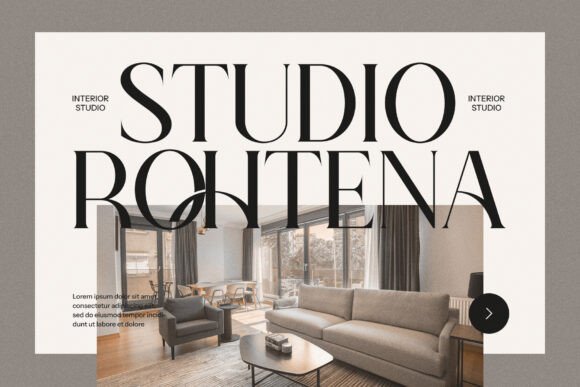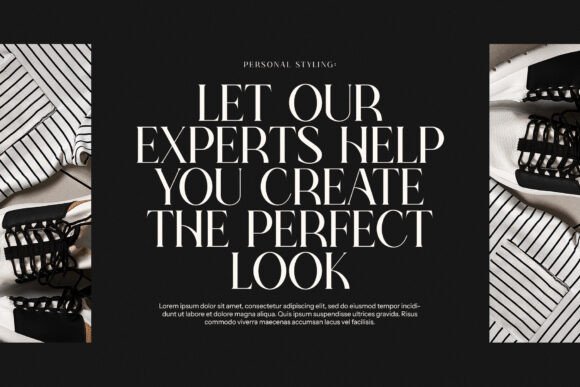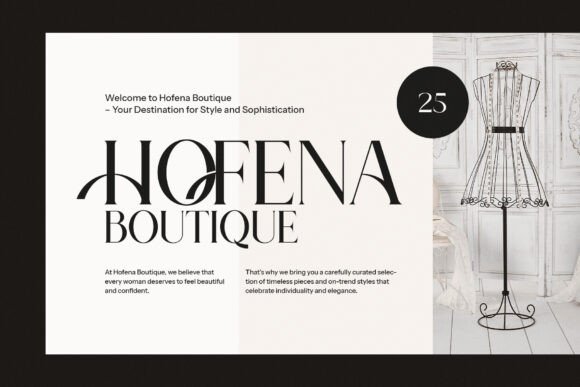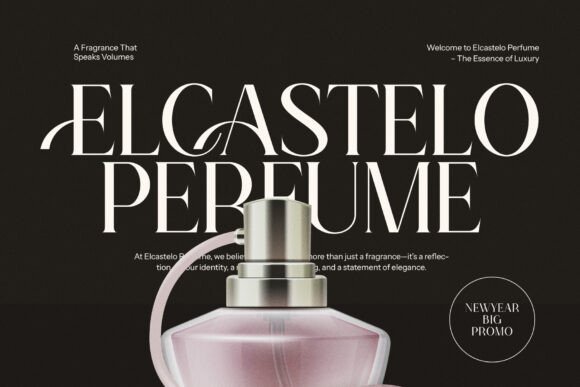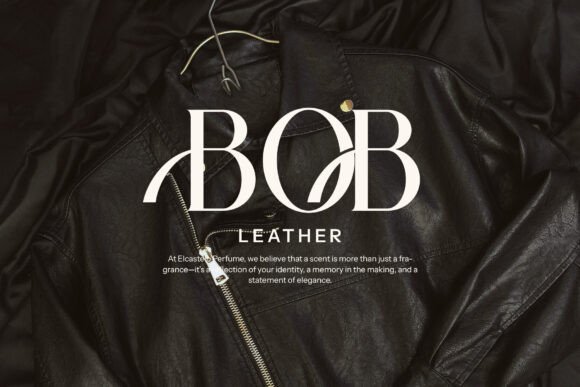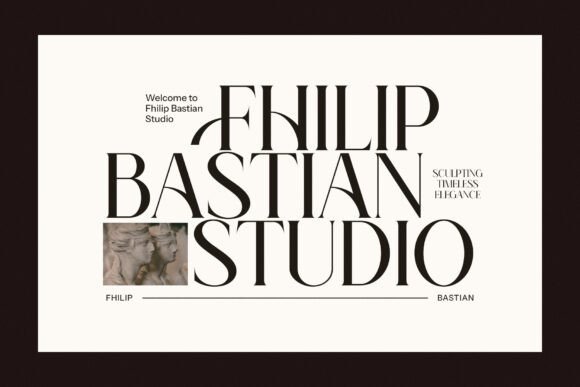
Introduction to Cazela Font
As you sit in front of your computer, staring at a blank canvas, waiting for inspiration to strike, you know the feeling. The blank page, the empty project, the thrill of creating something from scratch. This is the moment when the perfect design resource can make all the difference. For designers, the right font can elevate a project from mundane to magnificent, and that’s where the Cazela Font comes in.
With its unique blend of modernity and sophistication, the Cazela Font is a game-changer for any creative project. Its high-quality design features delicate serifs, smooth curves, and thoughtful details that make it a standout in the world of typography.
Whether you’re working on a logo, branding, or packaging design, the Cazela Font is the perfect choice. Its transparent background and intricate design ensure that your brand stands out while maintaining an air of elegance and sophistication. And the best part? It’s available for free download, making it an invaluable resource for designers of all levels.
Key Features of Cazela Font
- High-quality font with a unique, creative design perfect for a wide range of projects, from logos to brochures.
- Features a modern, elegant style that can be used for both personal and commercial projects.
- Can be used as a design resource for various creative projects, including branding, advertising, and editorial content.
Honest Review: Cazela Font
One of the standout features of the Cazela Font is its high quality. The font is well-designed, with clean lines and a professional look that makes it perfect for creative projects.
- Perfect for creative projects, such as branding and advertising
- May not be suitable for formal or traditional projects
- Some users may find the font too modern or trendy
Overall, I’m impressed with the Cazela Font. It’s a solid design resource that’s perfect for designers looking for a modern and stylish font. With its high quality and transparent background, it’s easy to see why it’s become a popular choice among designers.
Cazela Font is a high-quality, free design resource ideal for creative projects. With its unique style and transparent background, it can be easily incorporated into various design platforms.
Tips for Getting the Most Out of Cazela Font
1. Experiment with different font sizes and colors to create a visually appealing design.
2. Use Cazela Font in conjunction with other design elements, such as images and shapes, to create a unique and creative project.
3. Take advantage of Cazela Font’s transparent background feature to create a seamless design.
Common Use Cases for C
What is the recommended font size for using Cazela Font in a design project?
The recommended font size for using Cazela Font in a design project depends on the specific project requirements and the intended audience. However, as a general guideline, the font size should be at least 14-16 points for body text, and up to 48-60 points for headings, to ensure readability and maintain the high-quality appearance of the font.